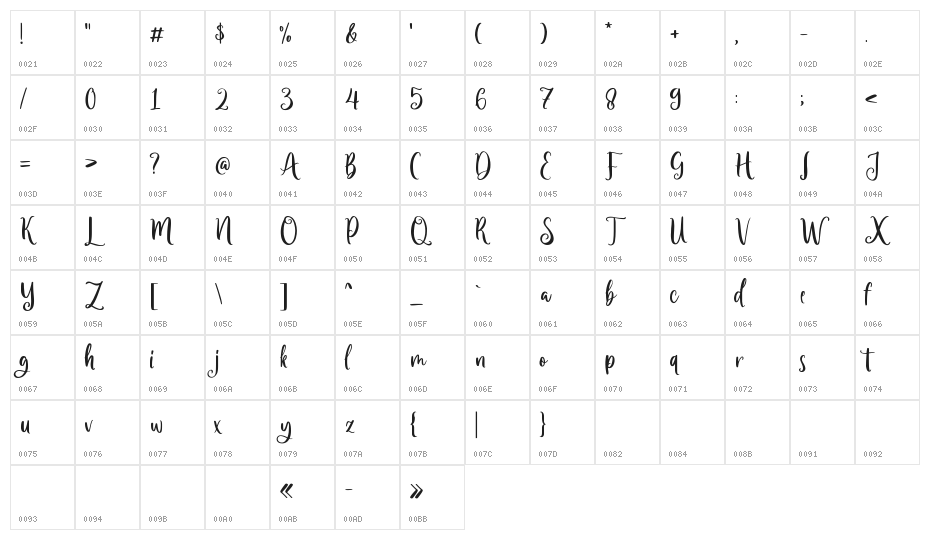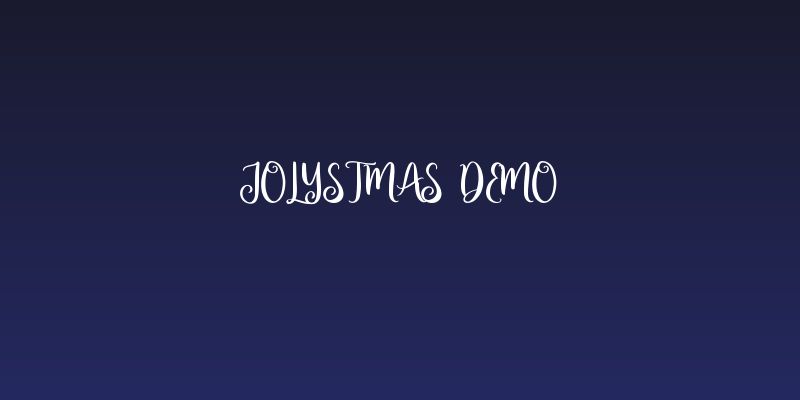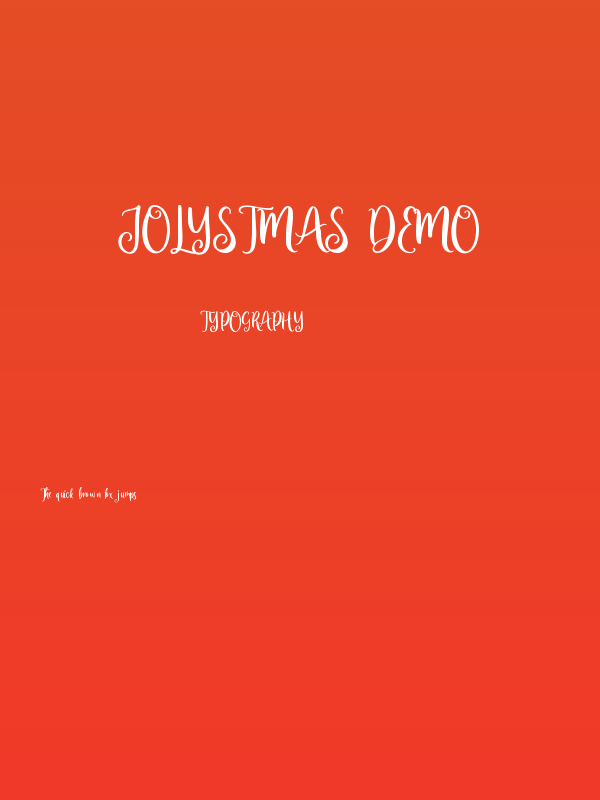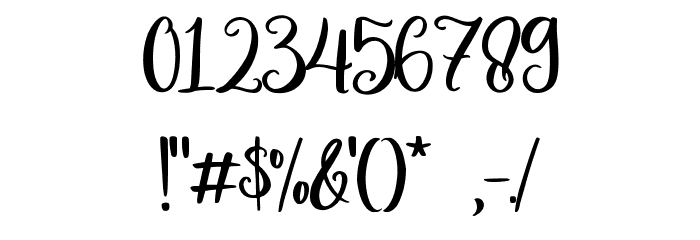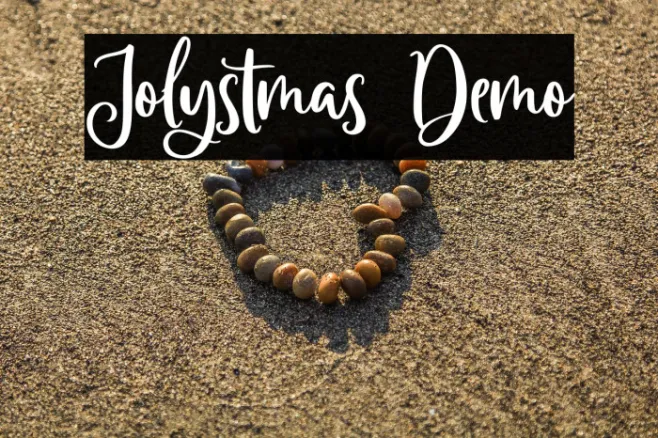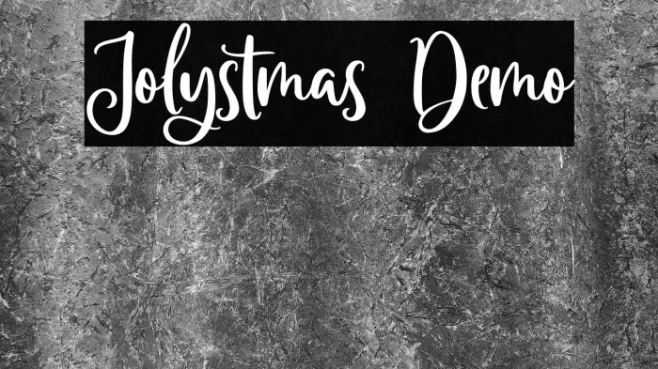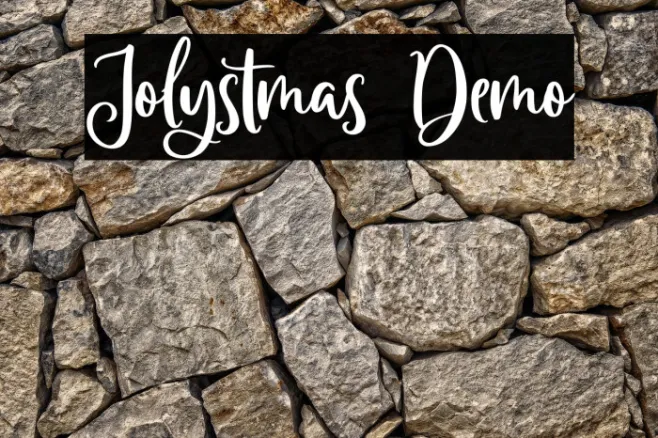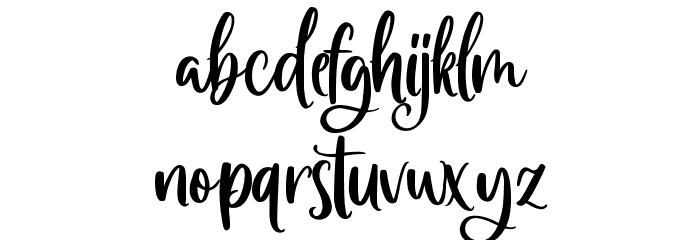
Jolystmas Demo Font
Jolystmas Demo Description
This font features an elegant and flowing script style, characterized by its smooth curves and decorative flourishes. The uppercase letters are bold and ornate, with intricate loops and swirls that add a touch of sophistication. The lowercase letters maintain a consistent style, with a slightly more relaxed and casual appearance, yet still retaining the overall elegance. The numerals are distinct and easy to read, with a playful yet refined design. Special characters are creatively styled to match the font's whimsical nature, making it suitable for festive and celebratory themes.